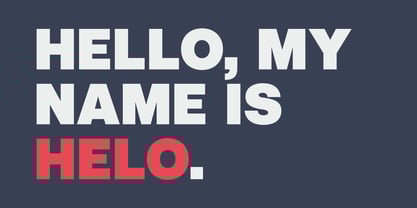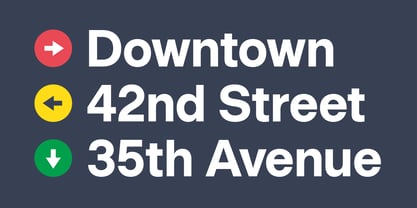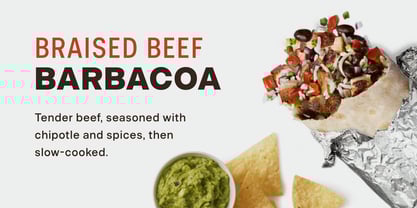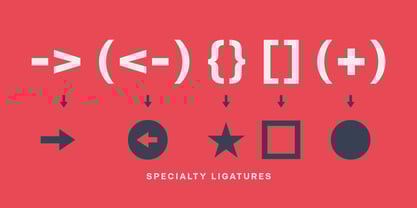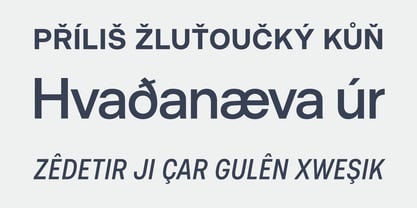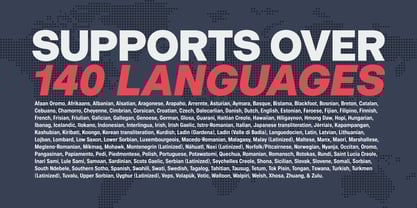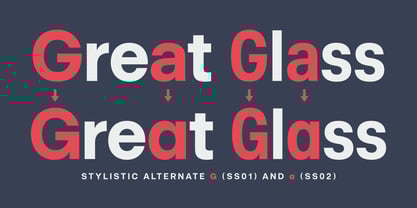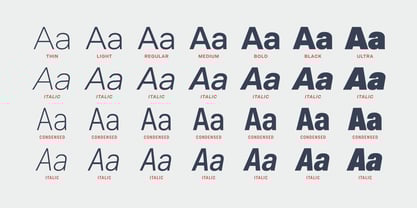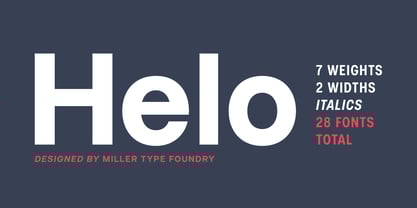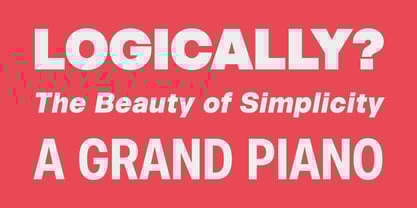
Die Schriftfamilie Helo wurde von Richard Miller entworfen und von Miller Type Foundry veröffentlicht. Helo enthält 28 Stile und Familienpaketoptionen.
Helo is a humanist font family made up of seven weights and two widths, with italics. Great for almost any use, Helo is a versatile workhorse typeface. Helo has a neutral feel, allowing it to be used on numerous projects across different platforms.